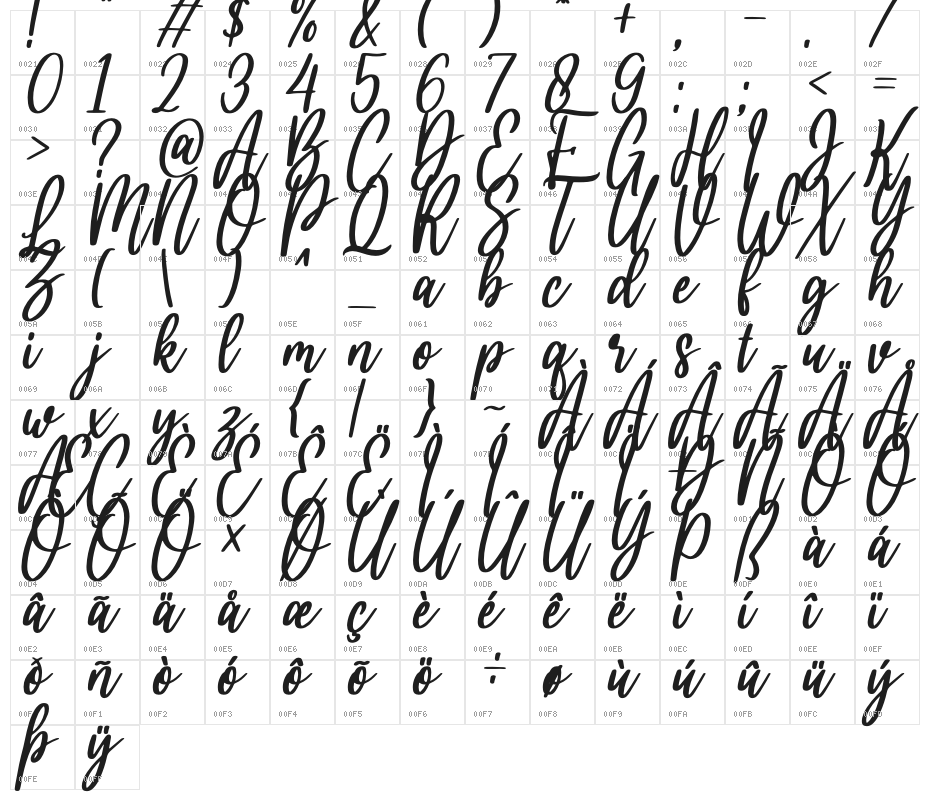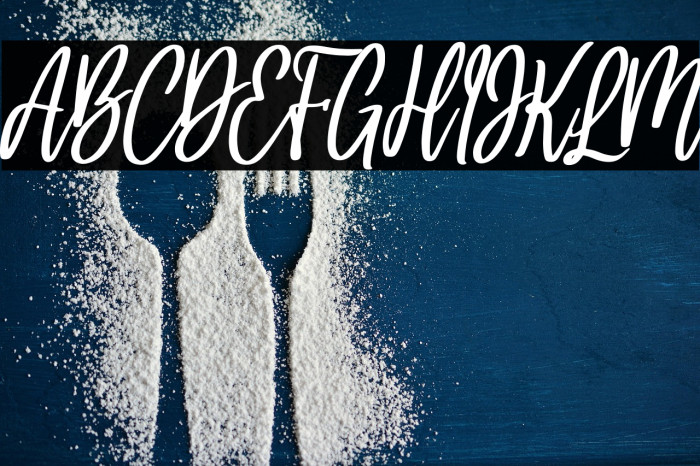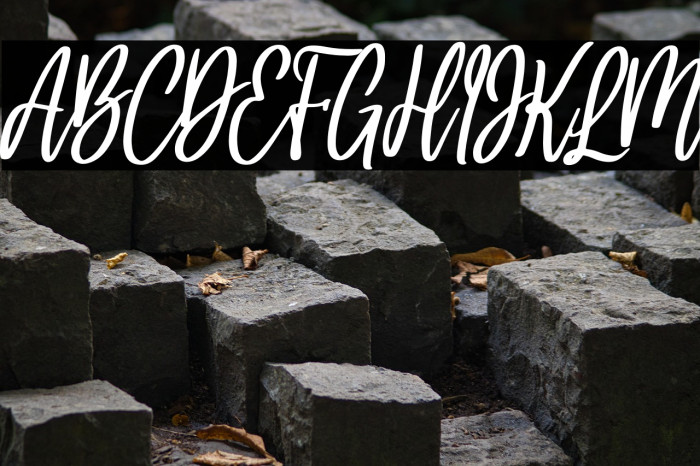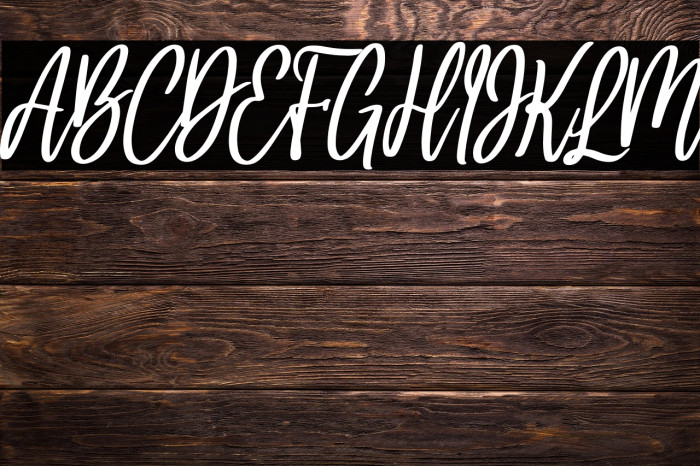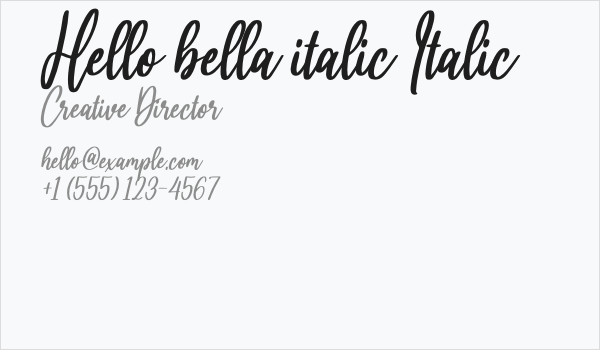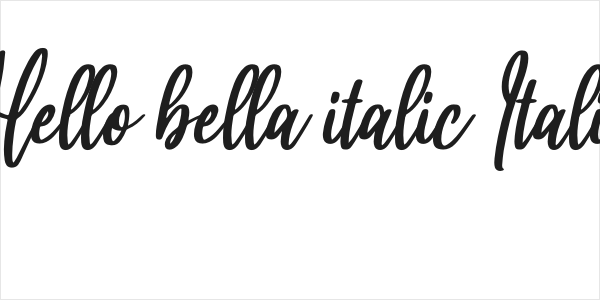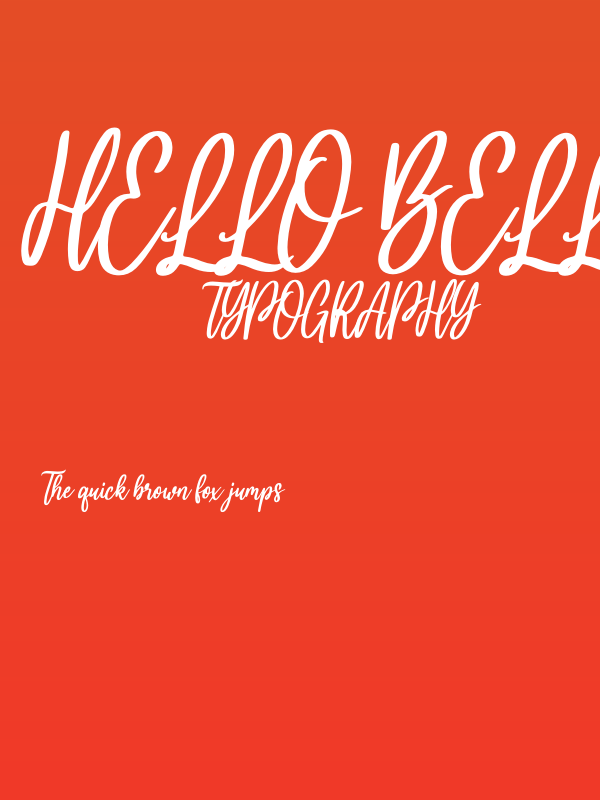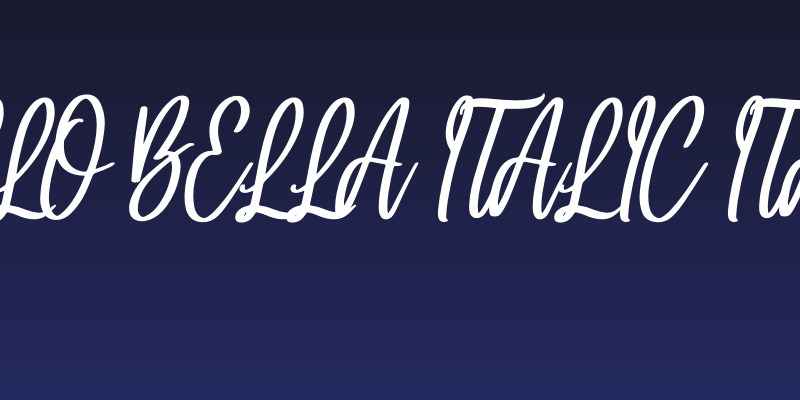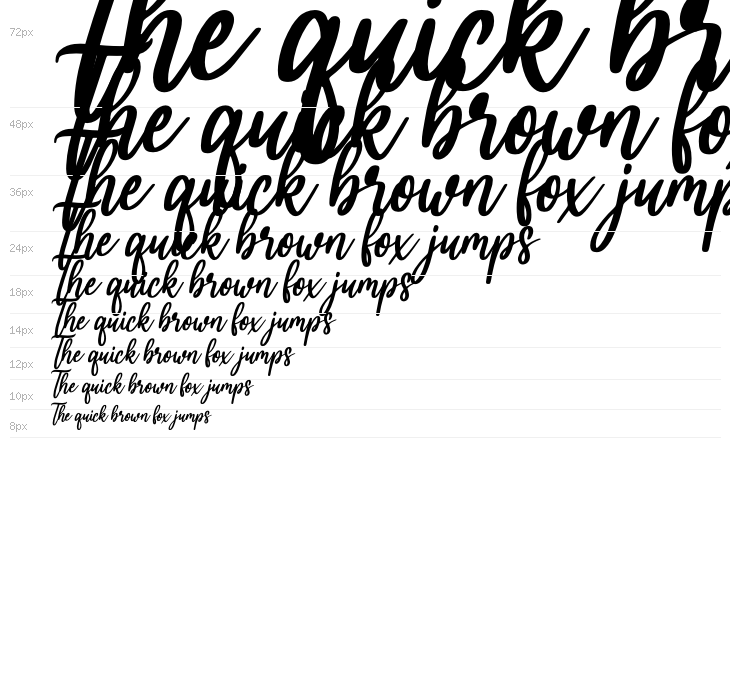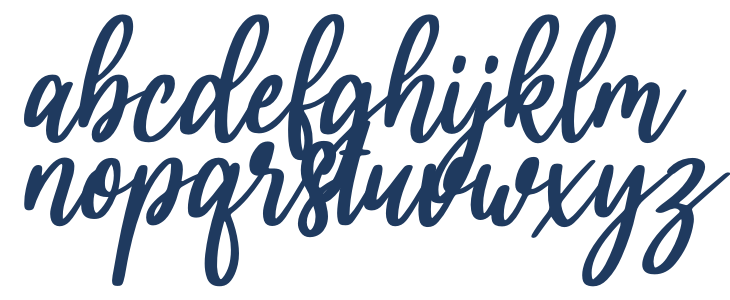
Hello bella italic Italic Font
Hello bella italic Italic Description
This font features a flowing, cursive style with an elegant and sophisticated appearance. The letters are connected, creating a seamless and fluid look that is both stylish and readable. The uppercase letters are bold and prominent, while the lowercase letters maintain a consistent flow, enhancing the overall aesthetic. The numerals and special characters are designed to match the script style, ensuring uniformity across all characters. This font is ideal for projects that require a touch of elegance and personality.